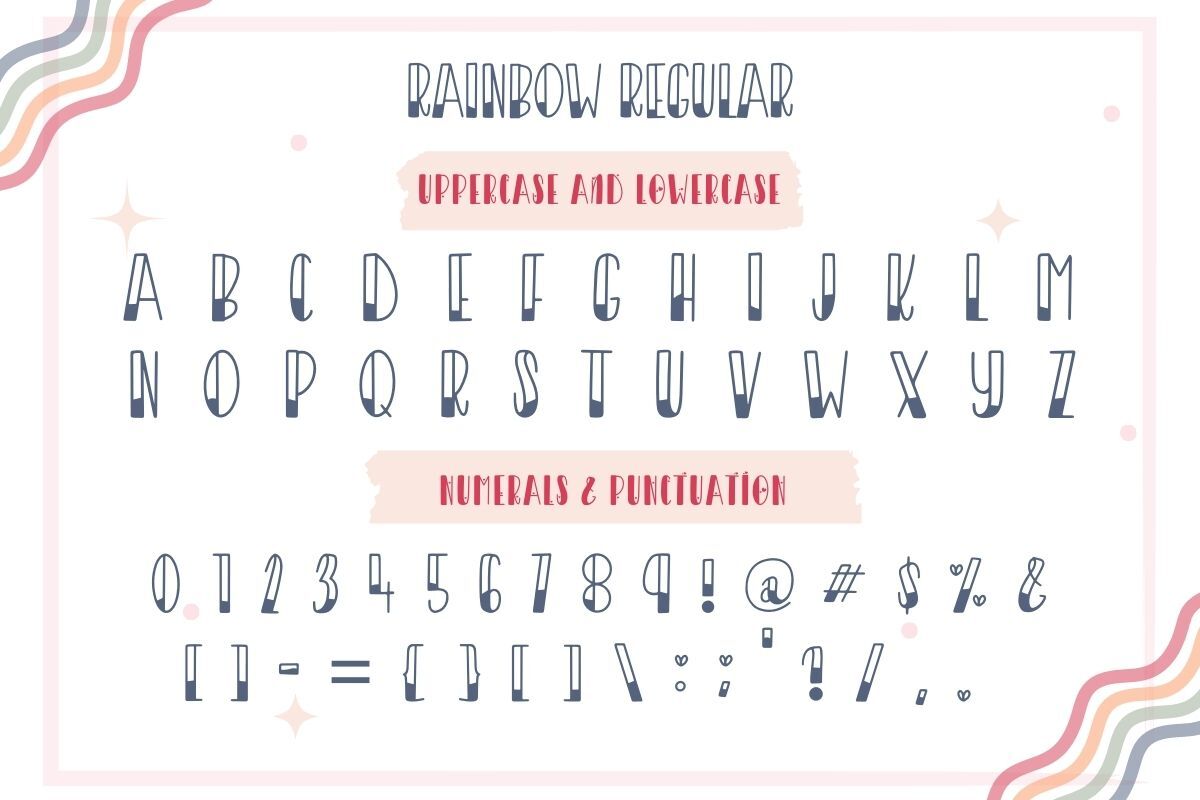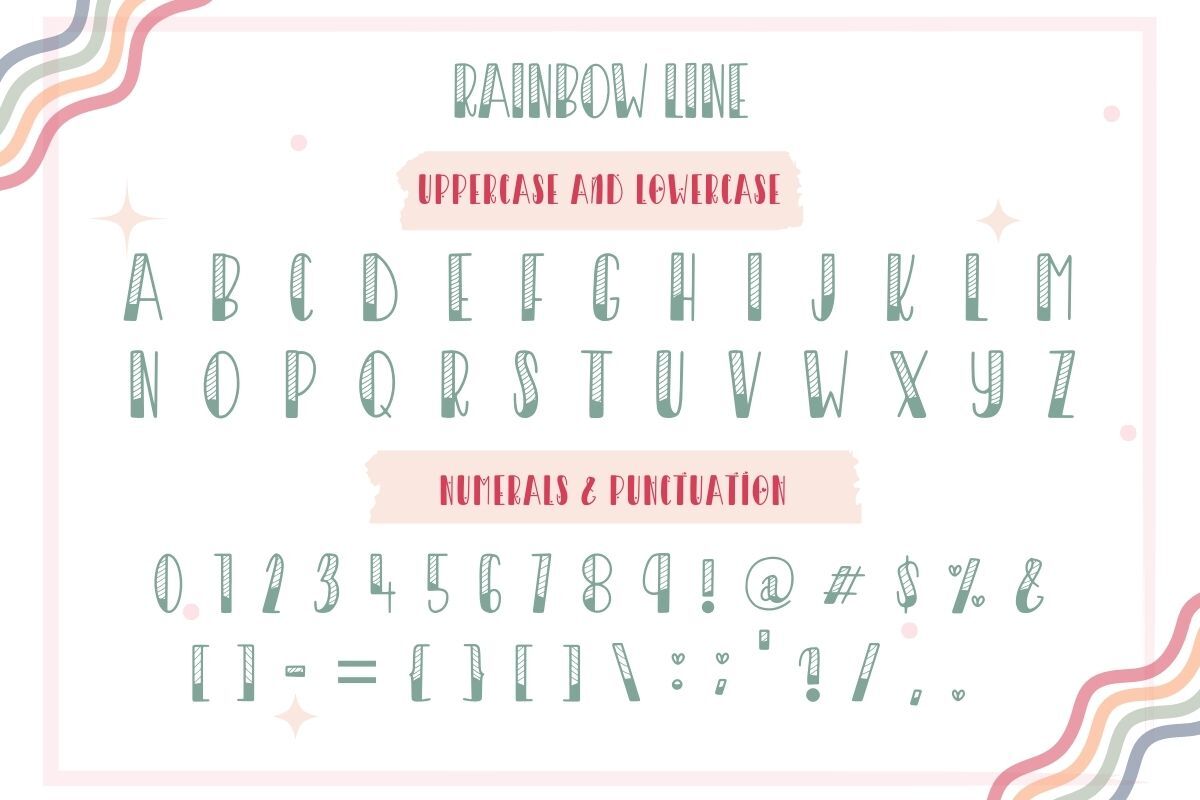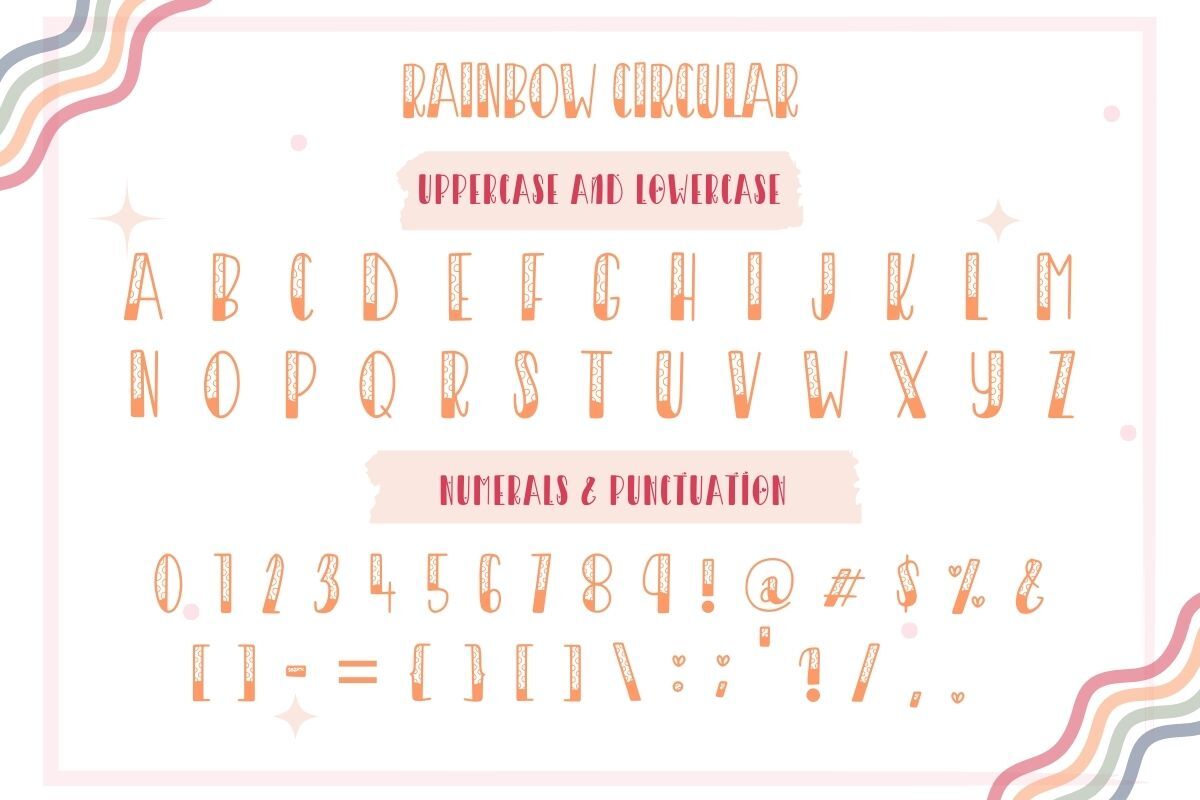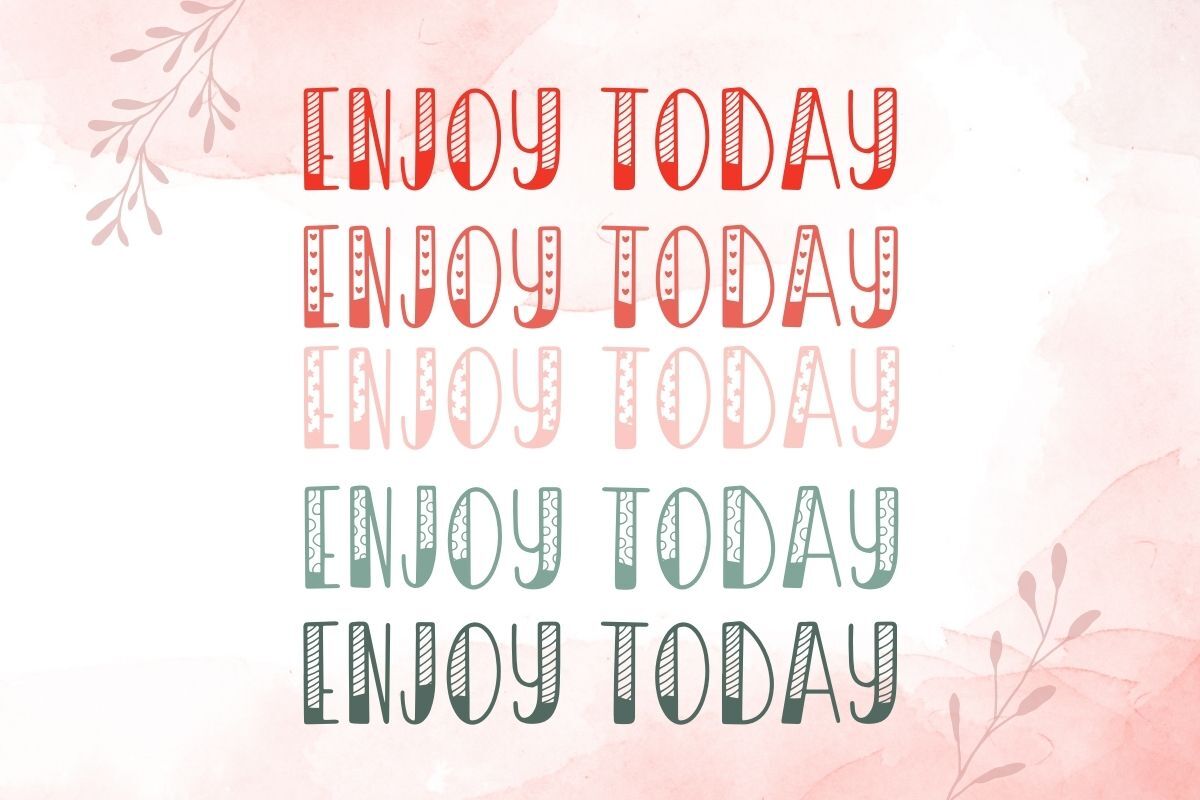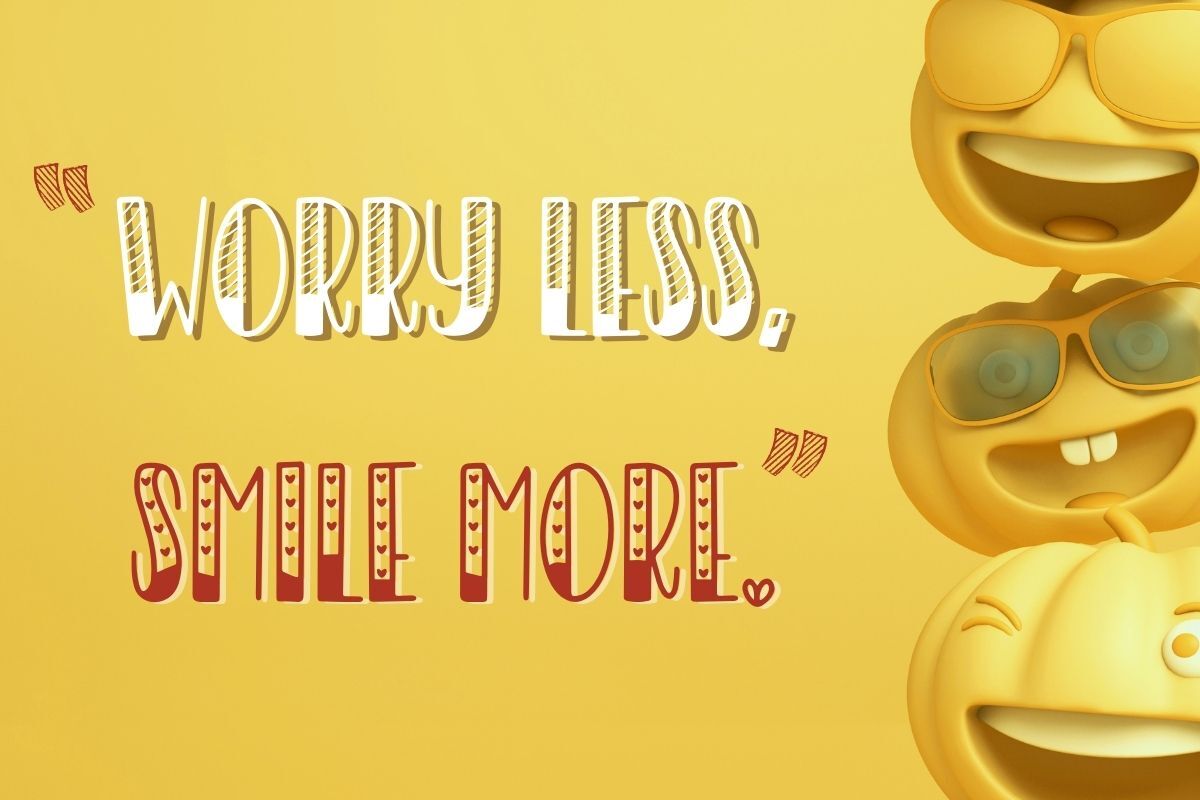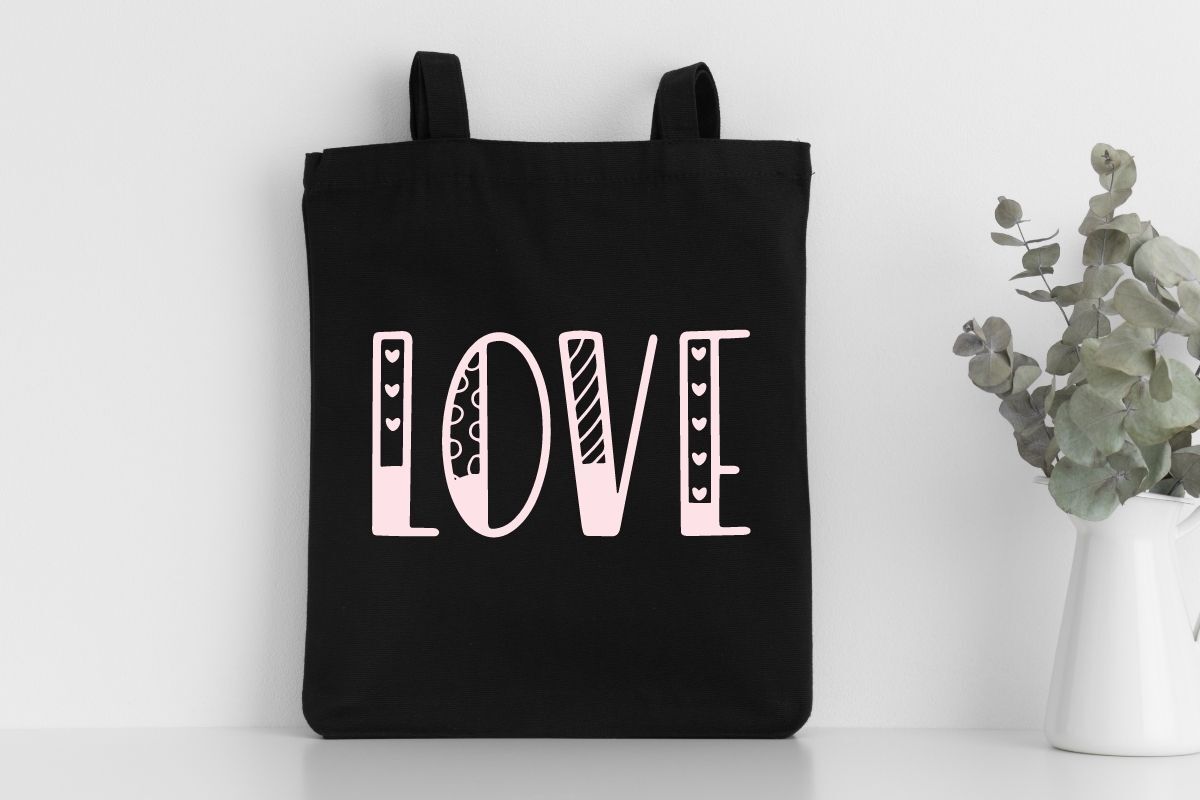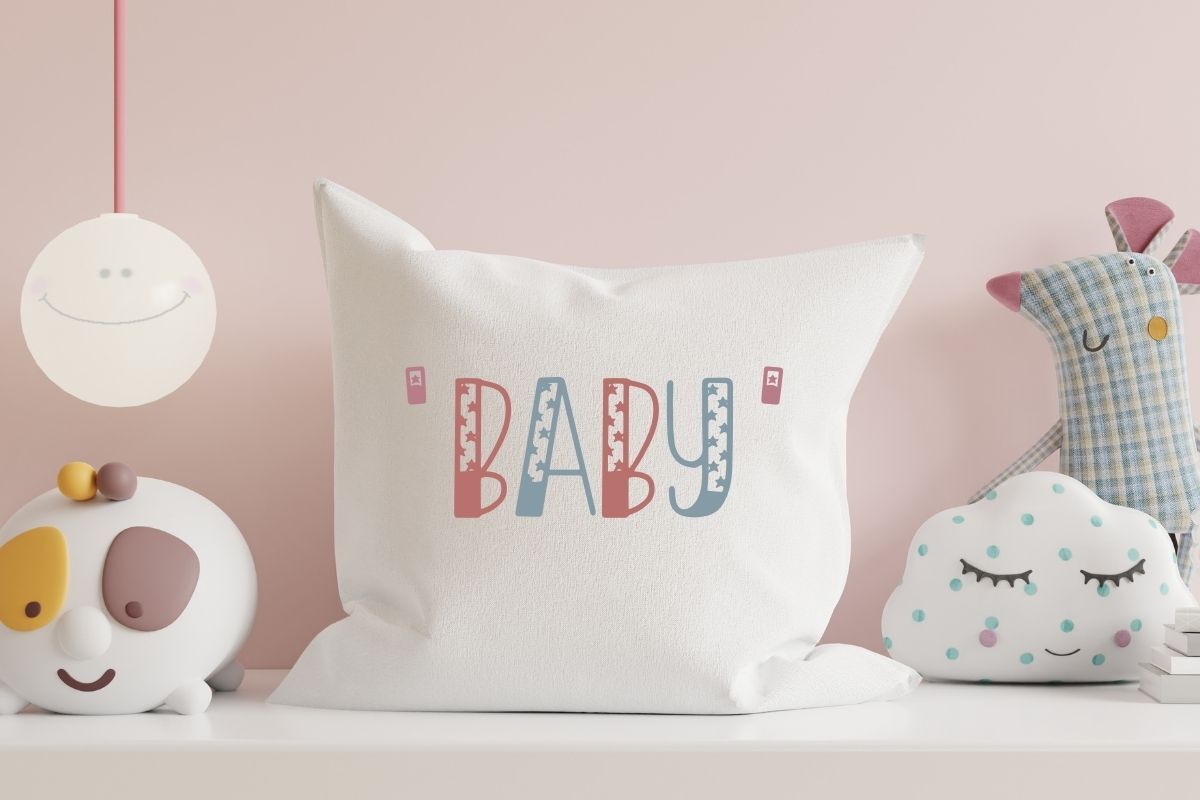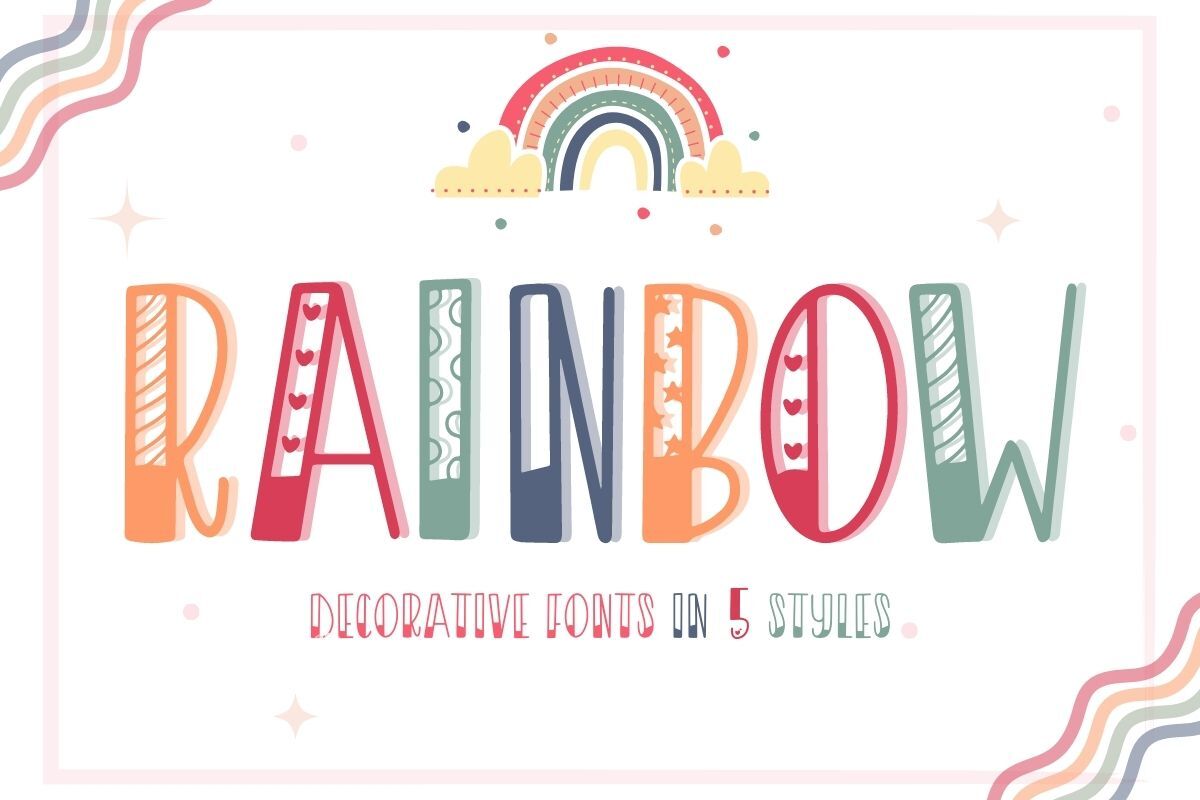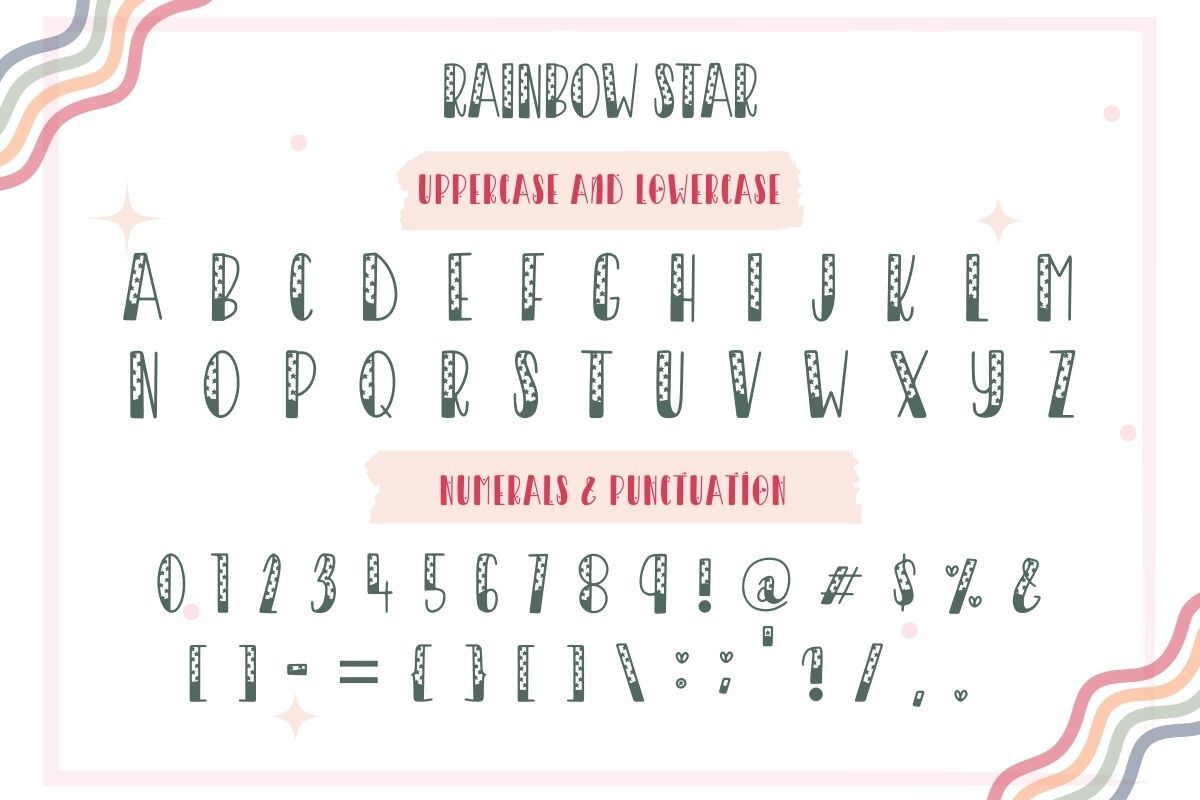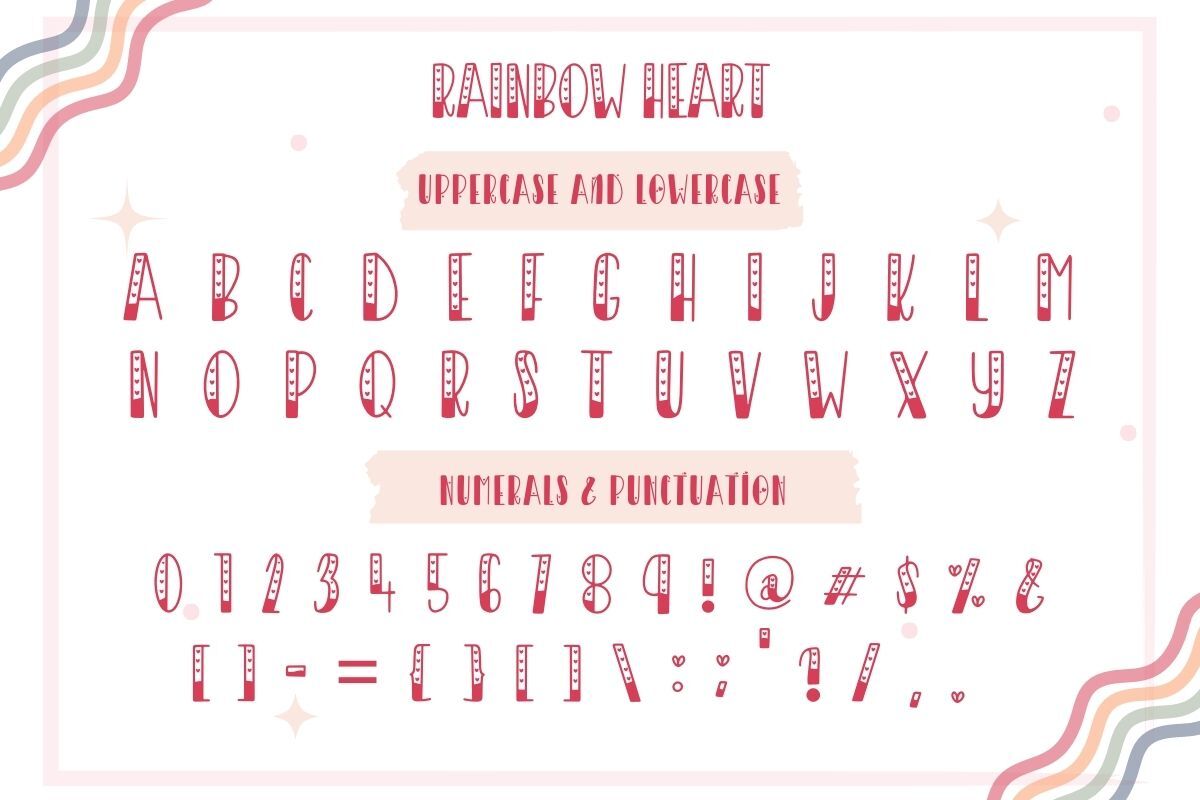
Rainbow - 5 styles Decorative Font
Rainbow Font is cute display fonts in 5 styles. ( circular, line, star, heart, and regular) Outline font combined with different elements get new fonts that are cute and fun. You creating a wide variety of new designs to match products such as banners, content, mugs, cards, shirts, stationery, social media posts, and more! **You will receive 1 Zip File ( 15 files) :  TTF file 5 files.  OTF file 5 files. WOFF file 5 files.  **Please make sure the program/software you are using accepts otf, ttf and woff font files. ❤️ Thank you! ❤️